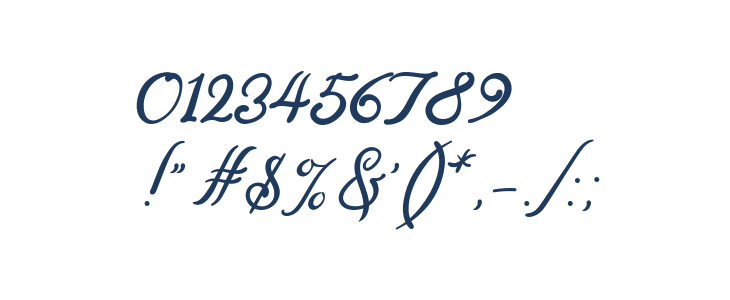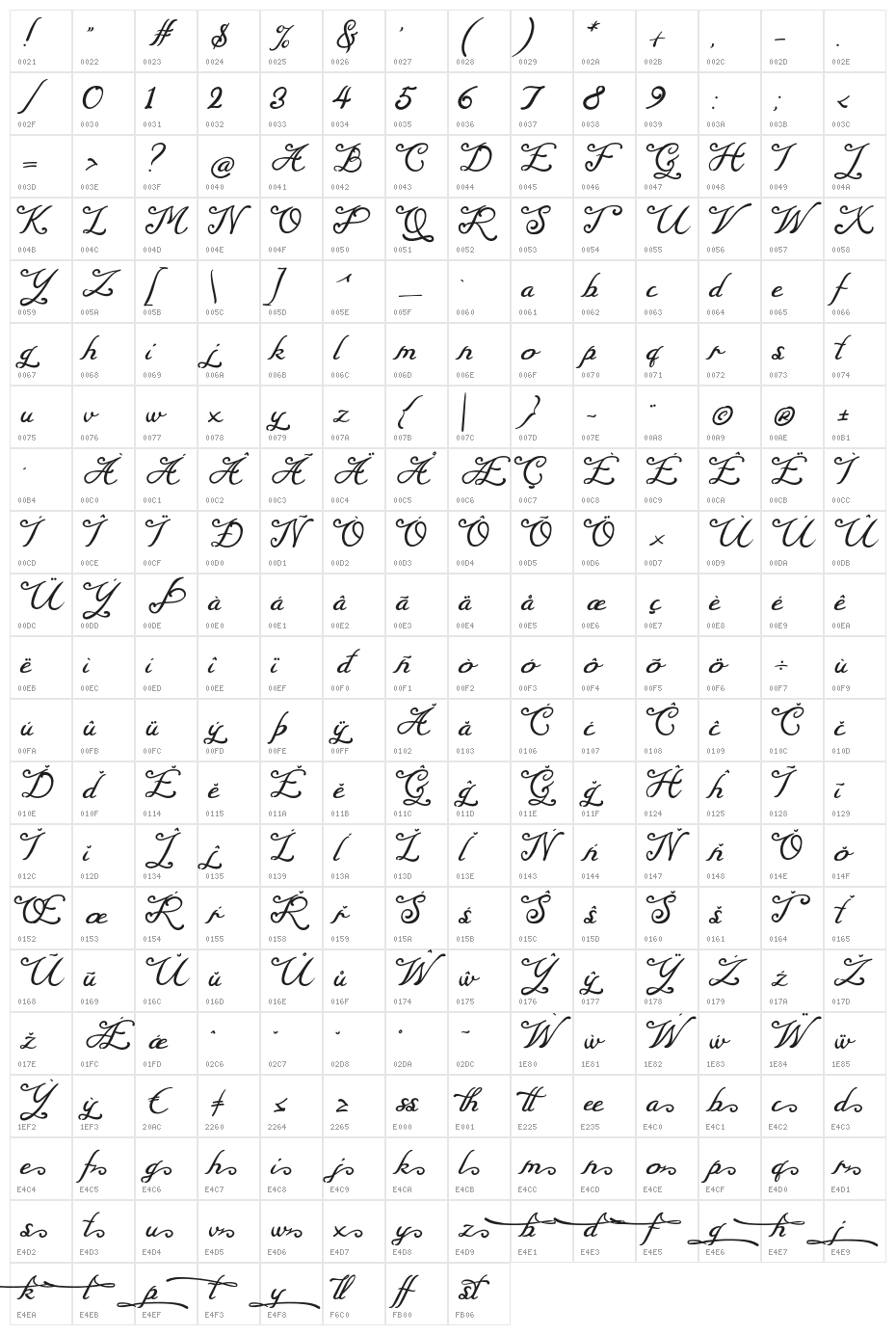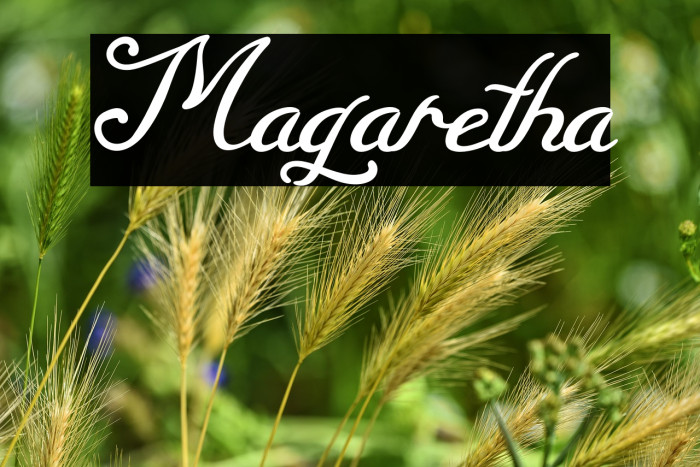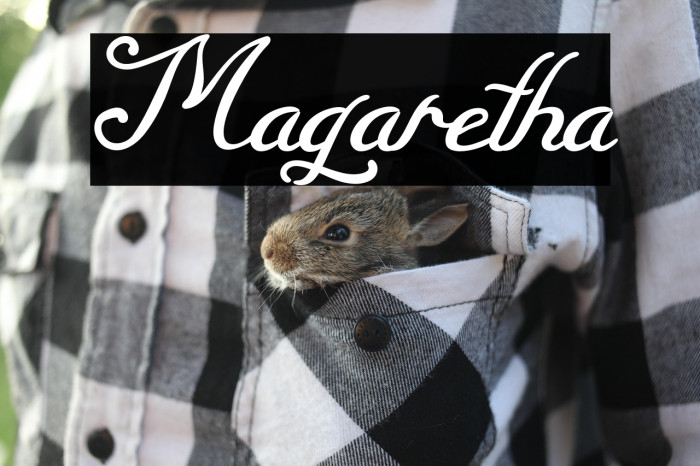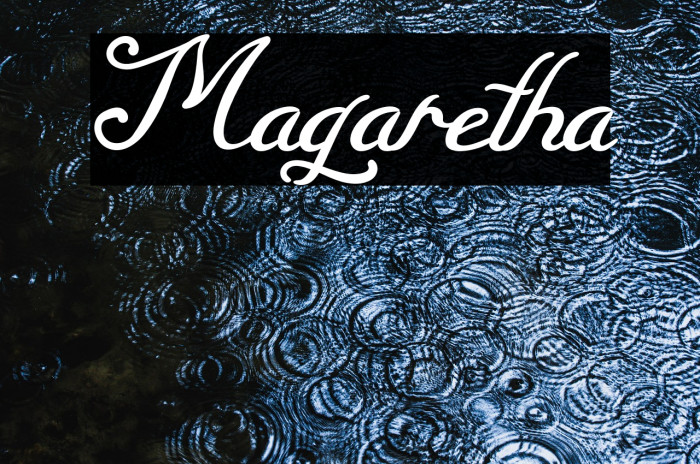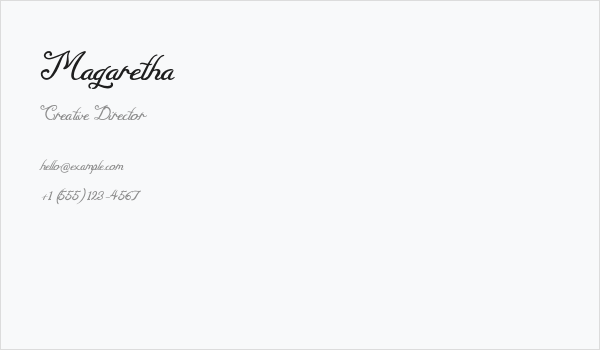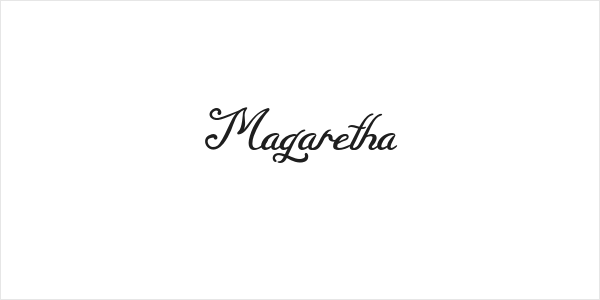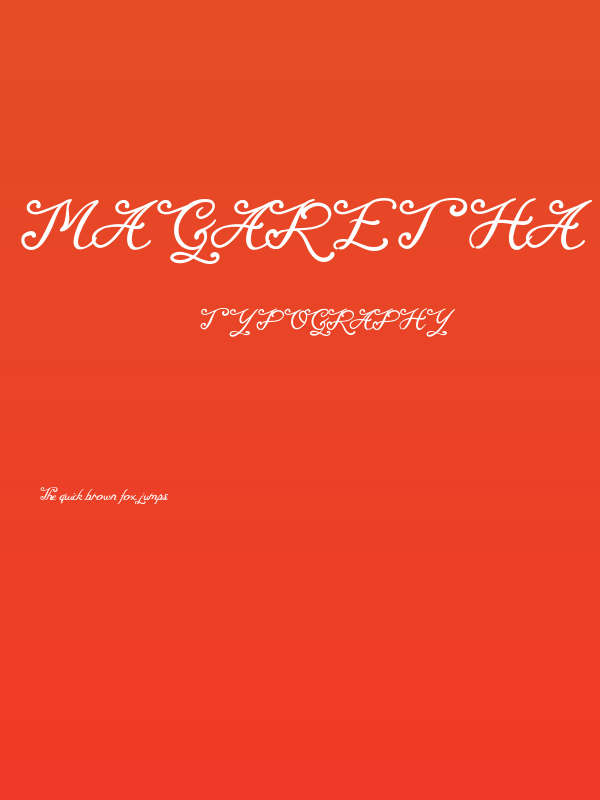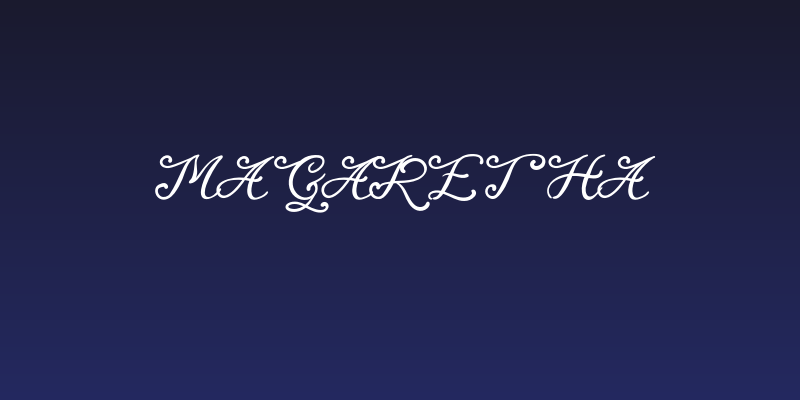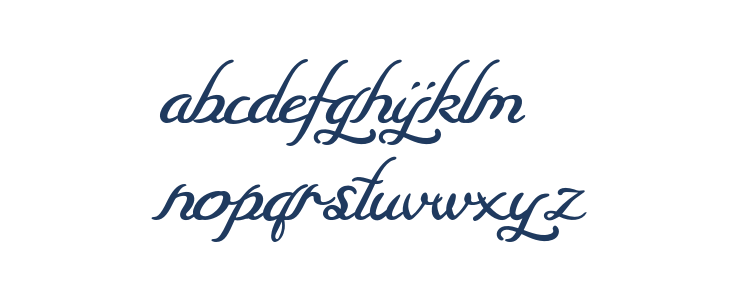
Magaretha Font
Magaretha Description
This elegant script font features flowing, interconnected characters with a classic and sophisticated appearance. The uppercase letters are adorned with intricate swirls and loops, adding a decorative touch to each character. The lowercase letters maintain a smooth and fluid style, enhancing readability while preserving the font's artistic flair. Numbers and special characters are crafted with the same attention to detail, ensuring a cohesive look across all text elements. The font's overall design is reminiscent of traditional calligraphy, making it suitable for projects that require a touch of elegance and refinement.